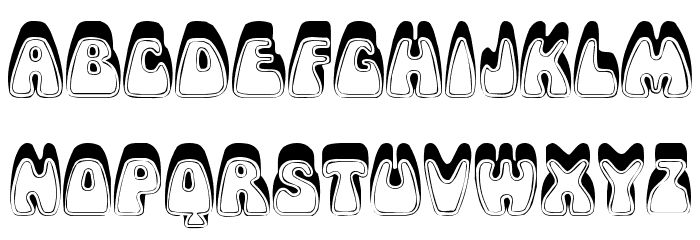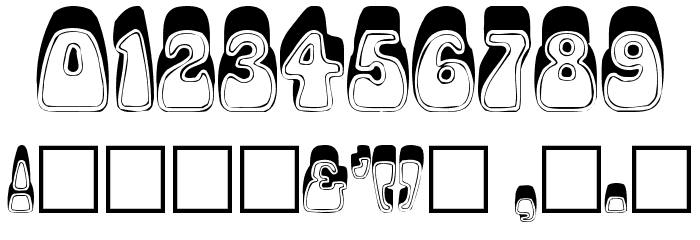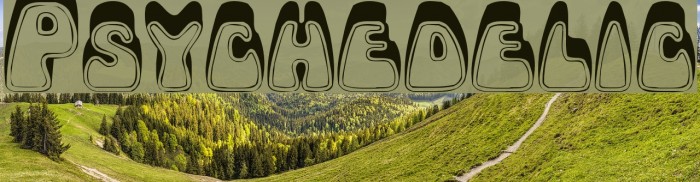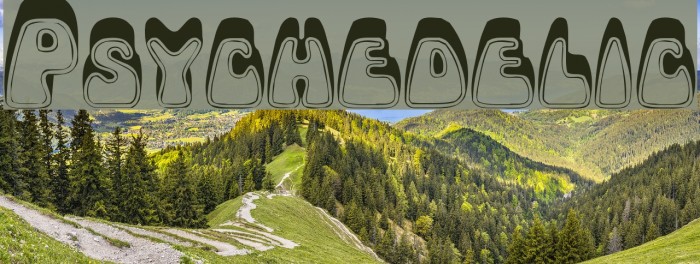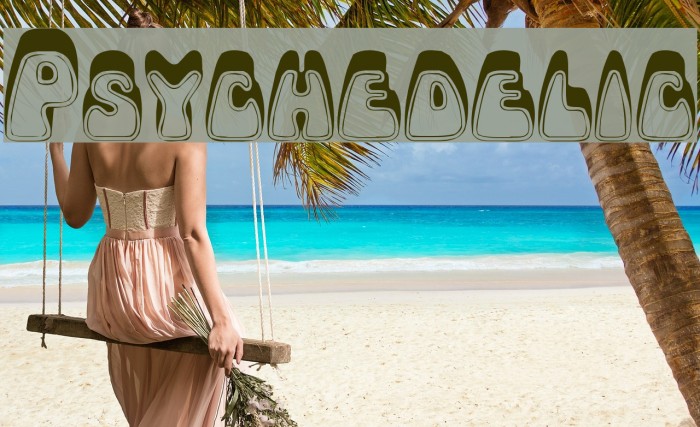
Psychedelic Font
This font features a bold, playful design with a distinct psychedelic vibe. The letters are characterized by thick, wavy outlines that create a sense of movement and fluidity. Each character appears to be filled with a solid color, surrounded by a contrasting outline that enhances its visibility and adds depth. The overall appearance is reminiscent of 1960s and 1970s psychedelic art, making it ideal for projects that aim to capture a retro or whimsical aesthetic. The font's unique style makes it stand out, ensuring that any text set in this typeface will be eye-catching and memorable.
A bold, wavy font with a psychedelic, retro feel.
- Proposed Projects: Ideal for music festival posters, retro-themed branding, album covers, and creative art projects.
- Contrast: High
- Overall Style: Psychedelic, Retro